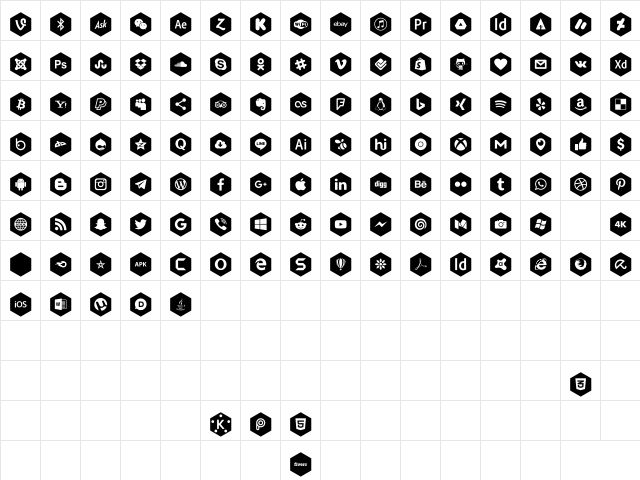
font icons 120 Regular
| Foundry | elharrak fonts |
| Designer | elharrak fonts |
Design Context for font icons 120 Typeface
font icons 120 is a composed and adaptable typeface that performs quietly and consistently across a wide range of design contexts.